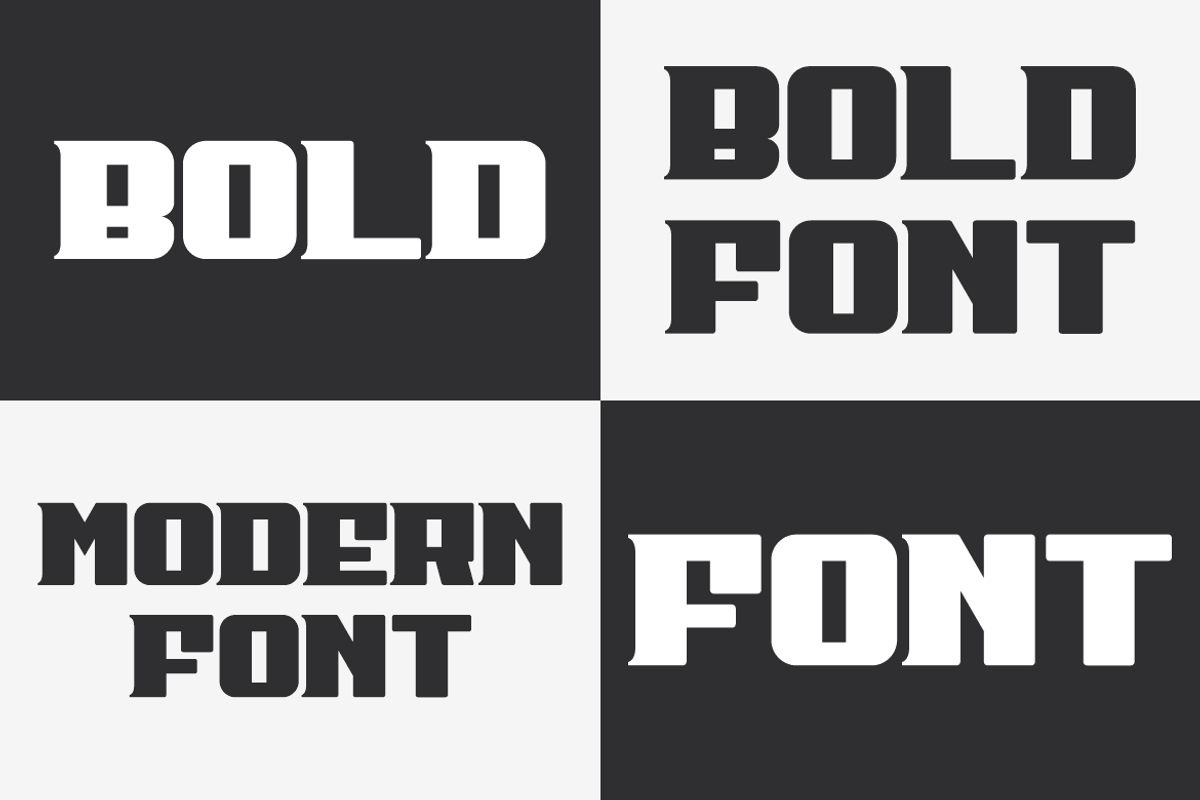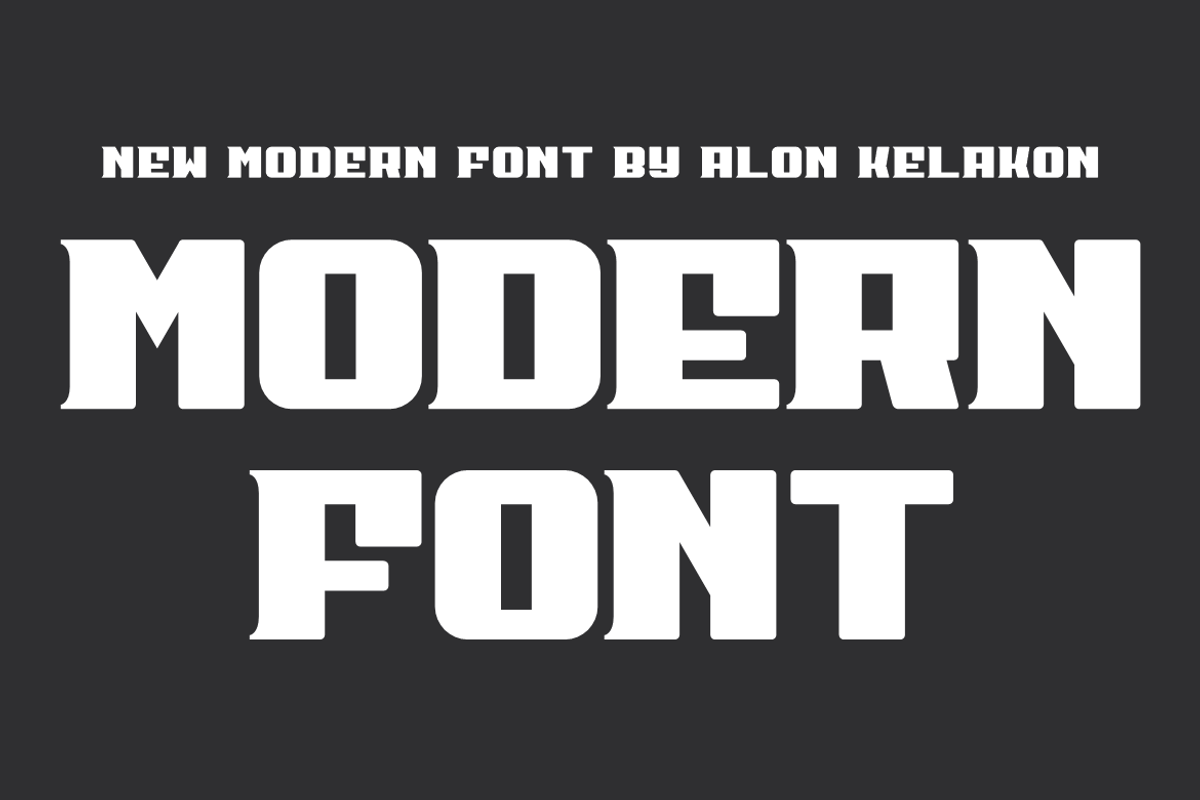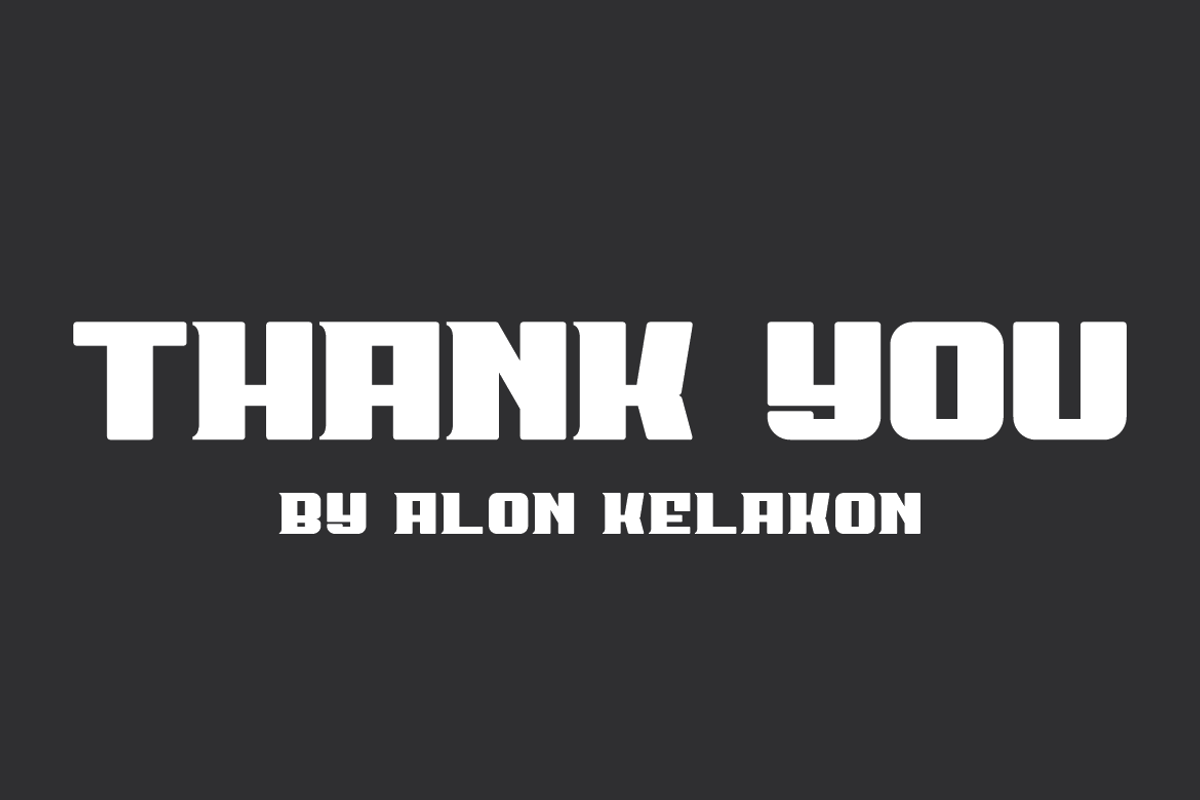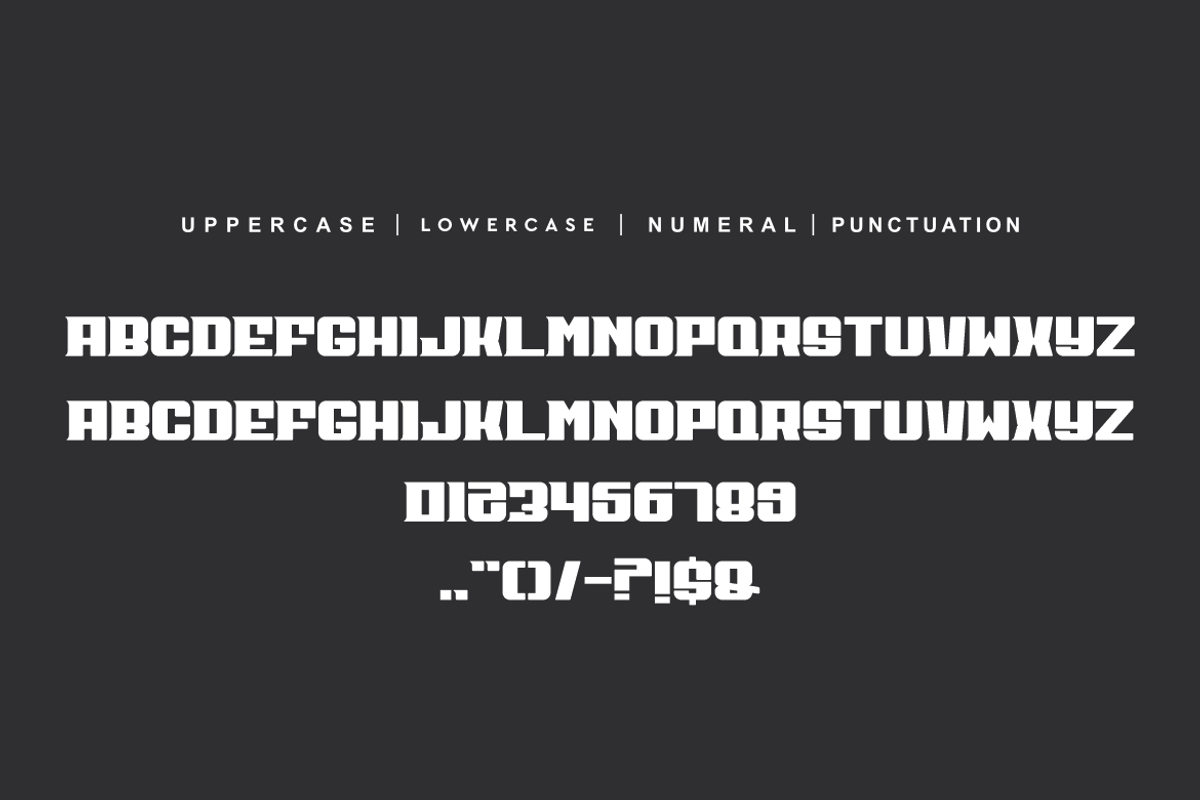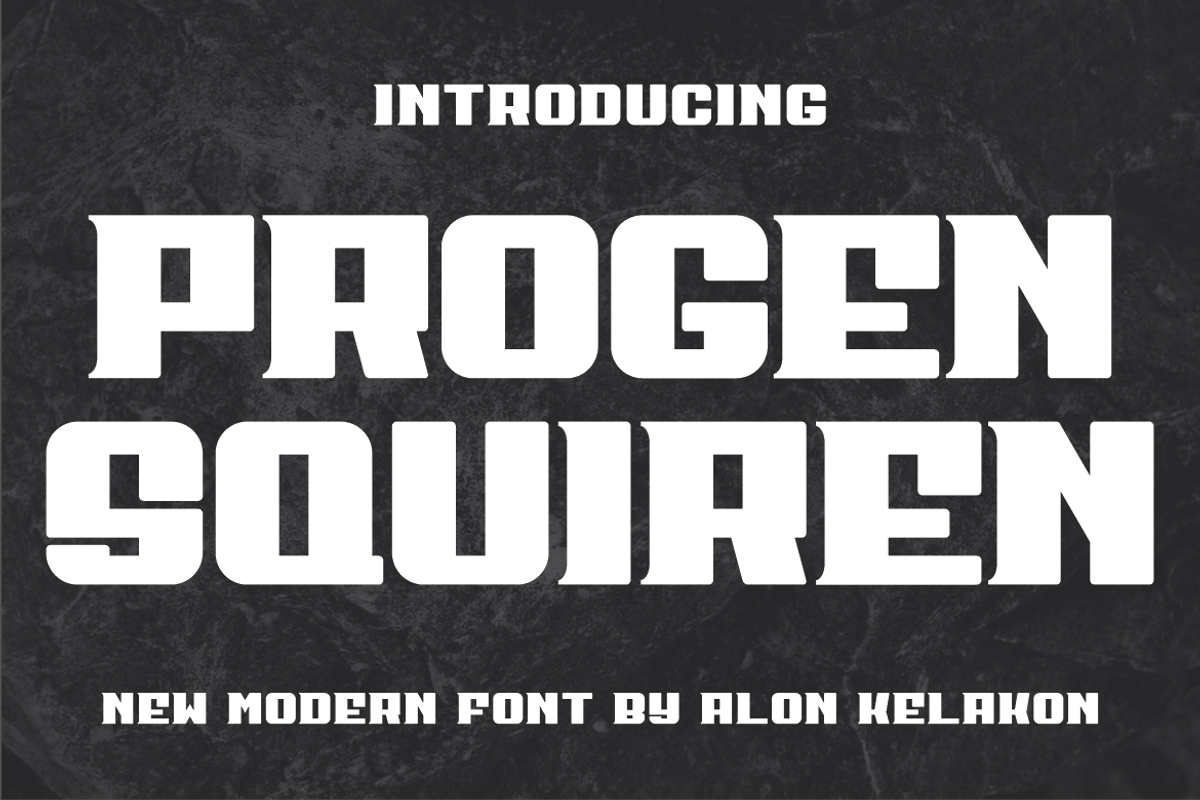
Progen Squiren
Progen Squiren Font is unique . Ready to use for your design like labeling, clothing, movie sceen, poster, movie title, gigs, album covers, logos, and much more.